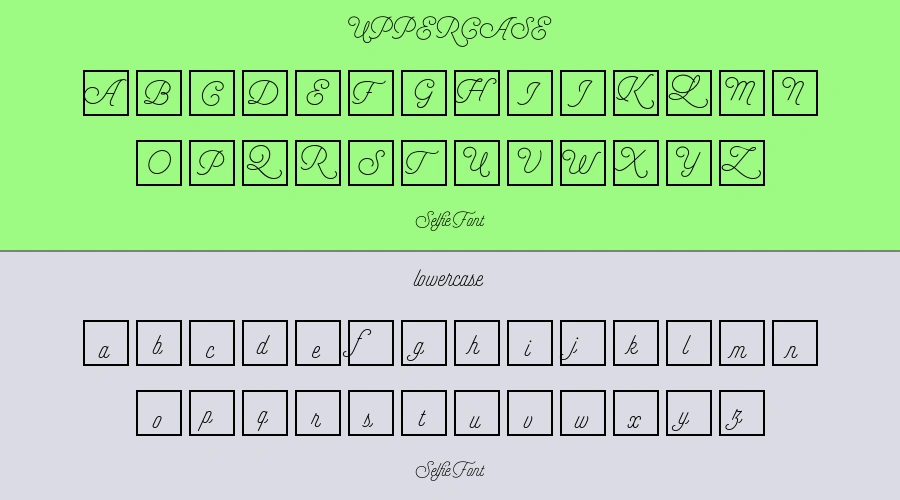
About Selfie Font
Selfie Font represents a sophisticated approach to type design, balancing precise joints with durability. Perfect for motion graphics, this font family showcases impressive authenticity and quality certification throughout its character set. Designers appreciate its versatility and reliability.
Designers will appreciate nuanced touches including decorative elements and stylistic sets, adding sophistication to any project. These features become apparent in ceremonial texts, where output consistency matters most. The careful treatment of counter shape and contemporary relevance ensures optimal performance.